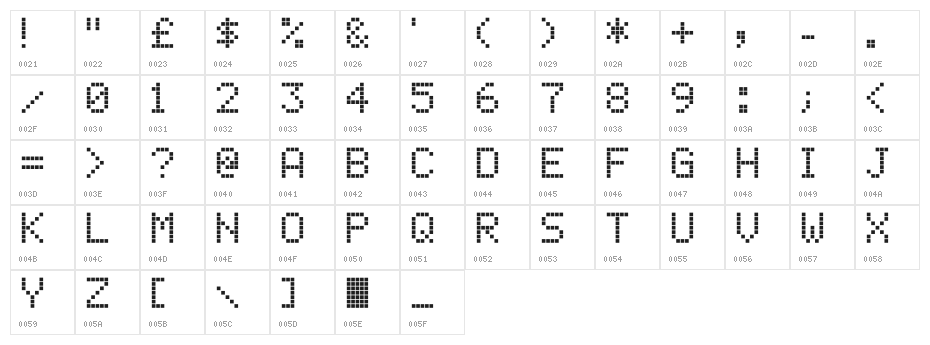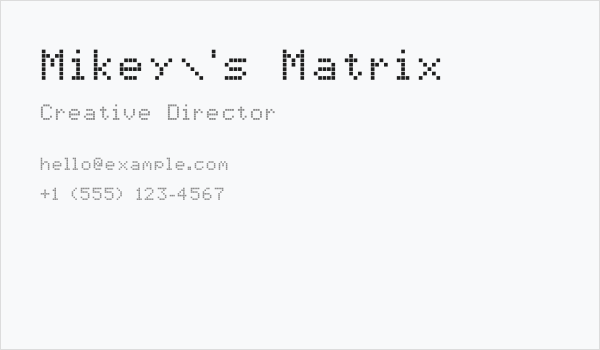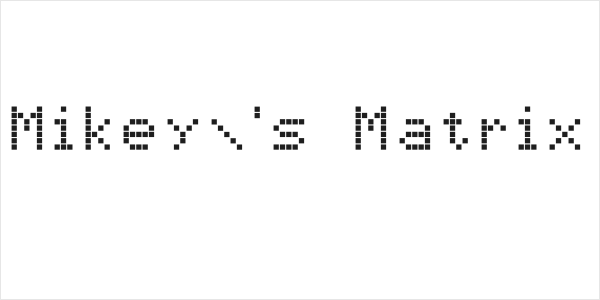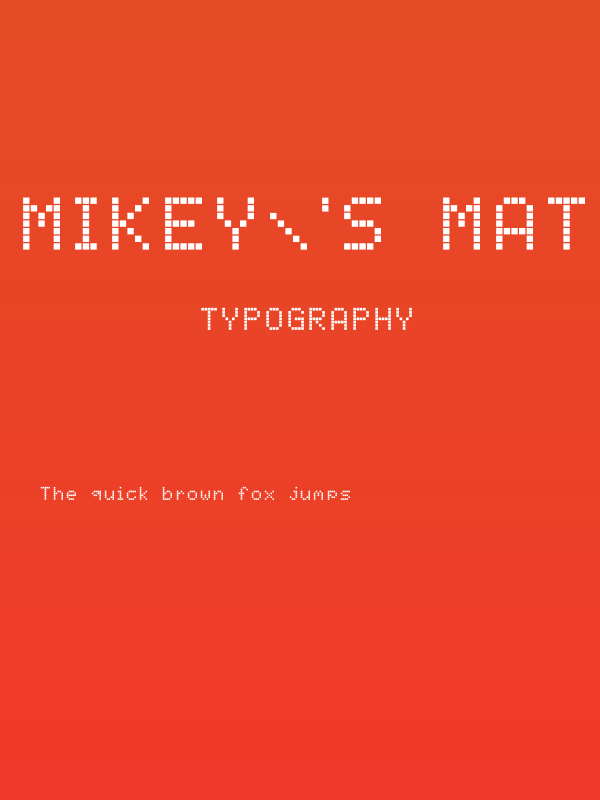
Mikey's Matrix Font
Mikey's Matrix Description
This font features a unique design where each character is represented by a series of square outlines, creating a matrix-like appearance. The uniformity and geometric precision give it a futuristic and digital feel, reminiscent of early computer displays or pixel art. The characters are evenly spaced, maintaining a consistent grid layout that enhances readability despite the abstract representation. This style is particularly striking for projects that aim to convey a sense of technology or modernity.
| Use Case | Logos, Headlines, Digital Art |
| Proposed Projects | Ideal for tech-themed designs, digital art projects, or branding for technology companies. |